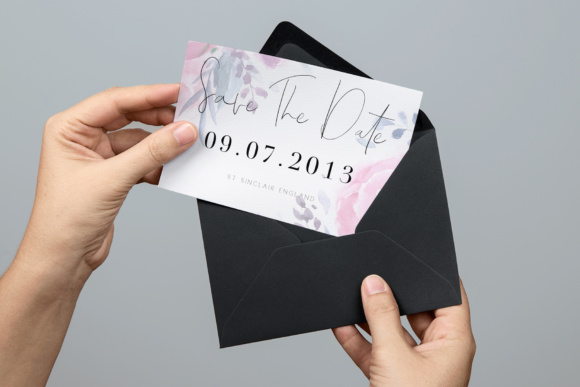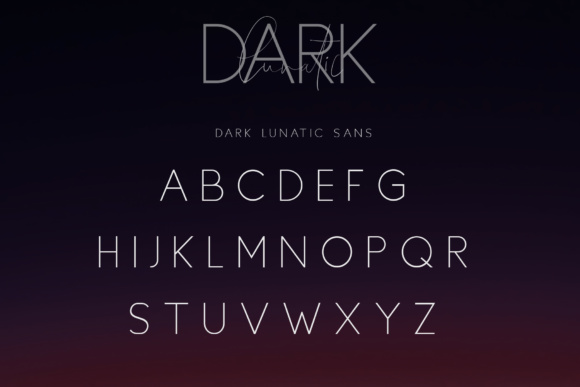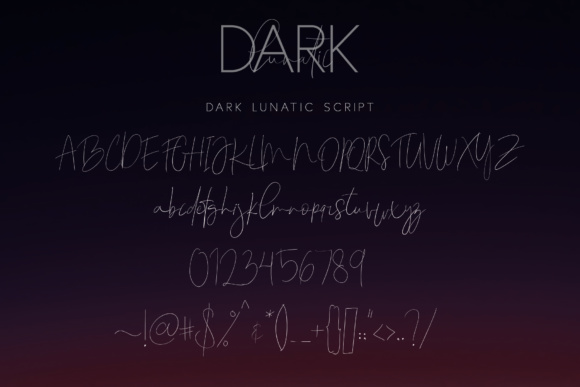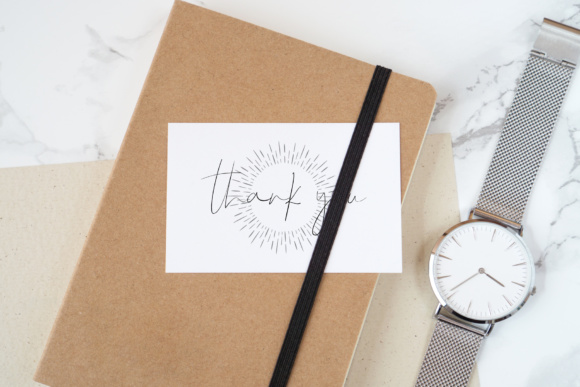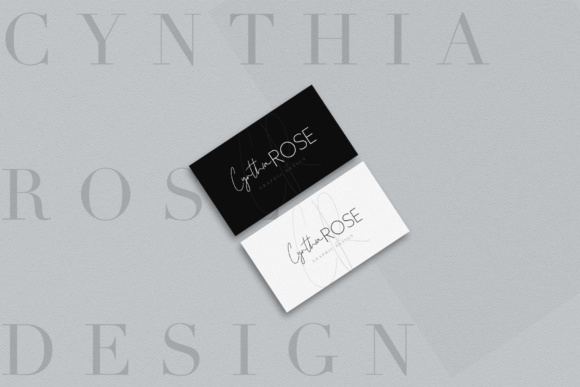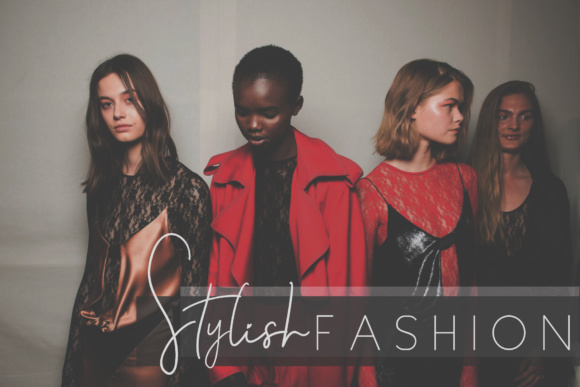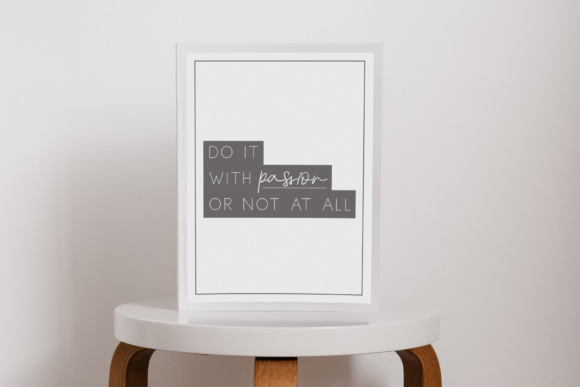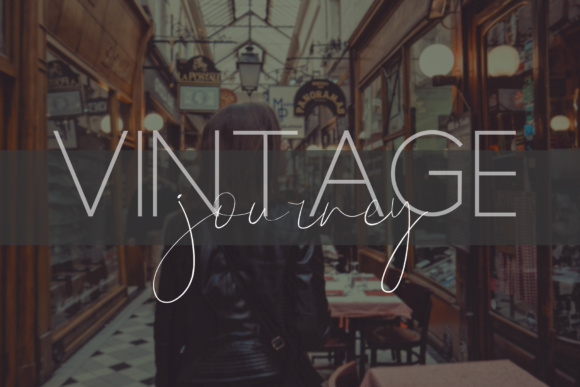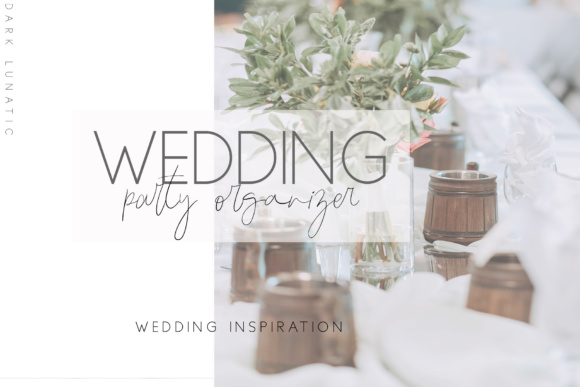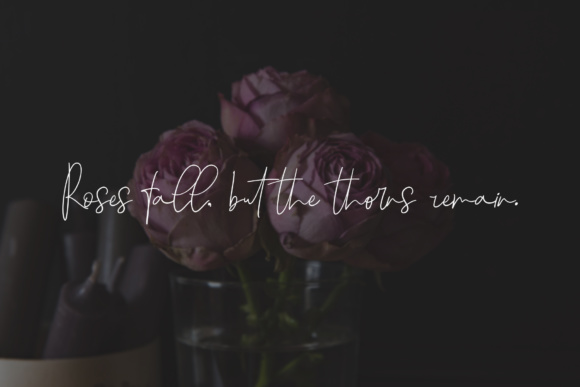
Dark Lunatic Duo Font
About Dark Lunatic Duo Font
The Dark Lunatic is a fancy font duo. It has comes in a script and sans version which both have a typographic harmony for a diversity of design projects.